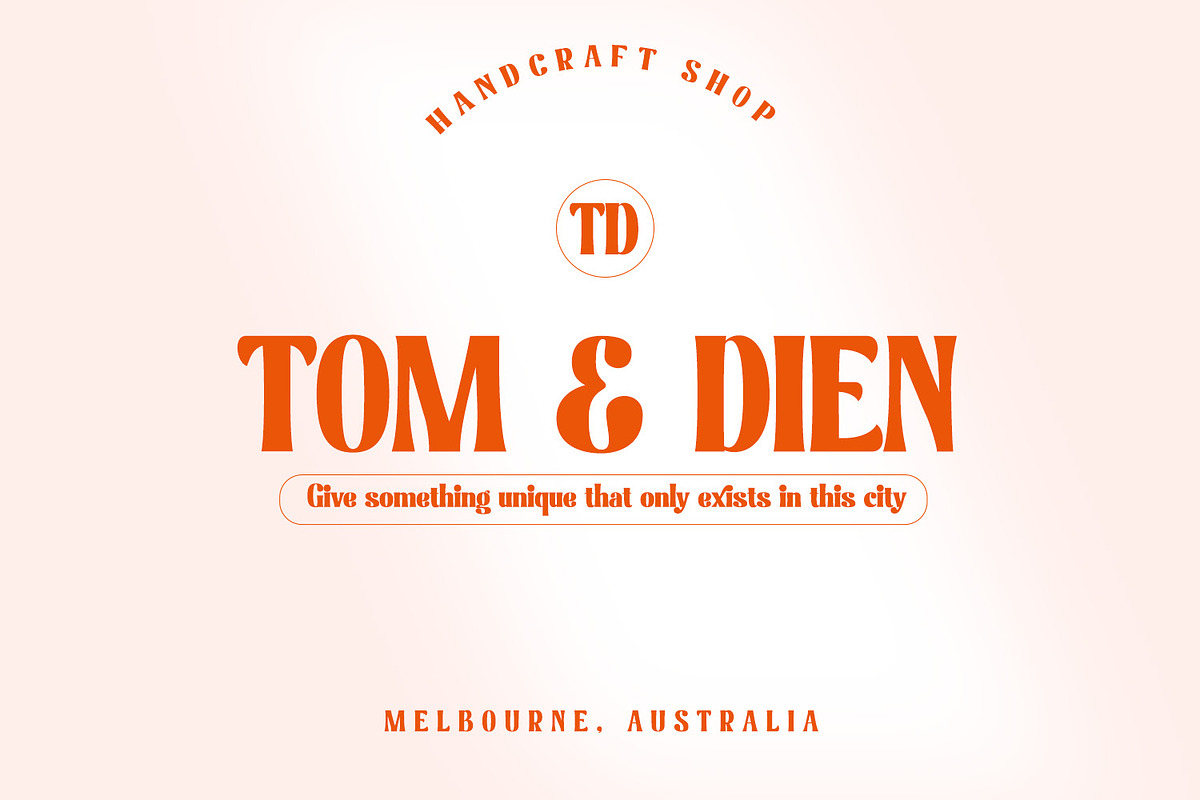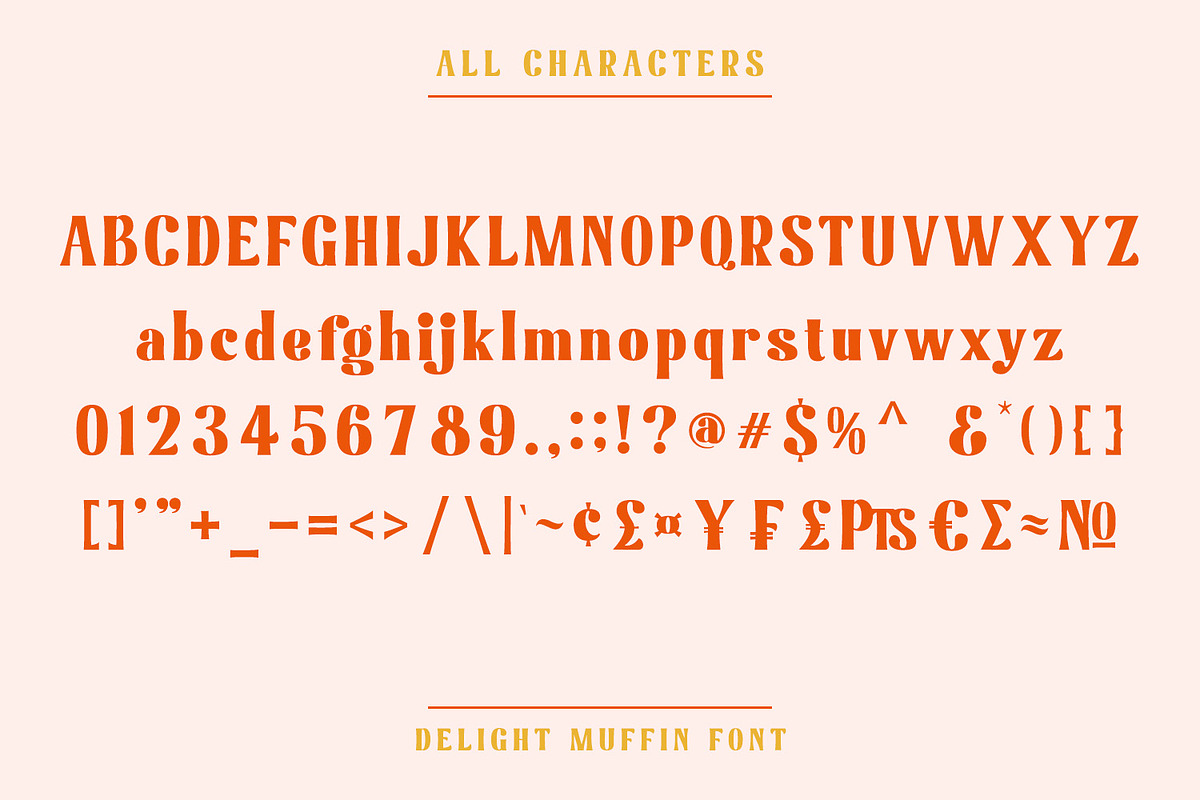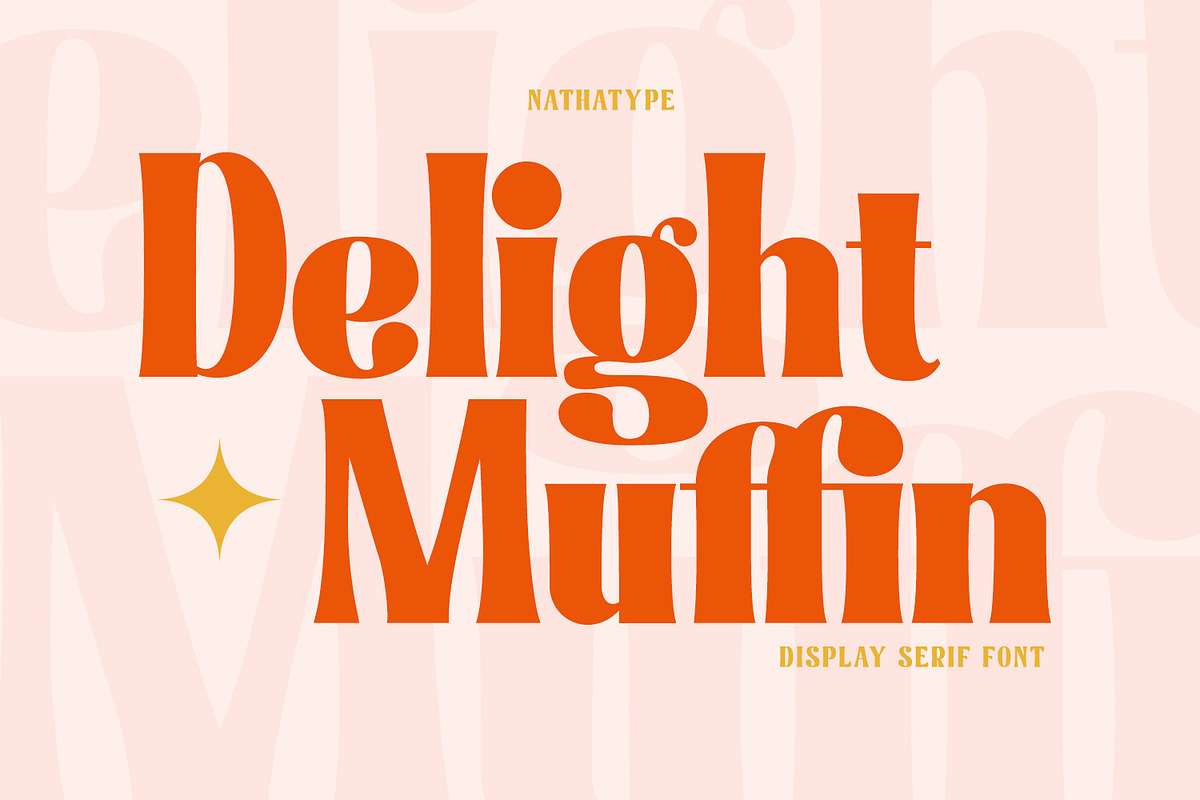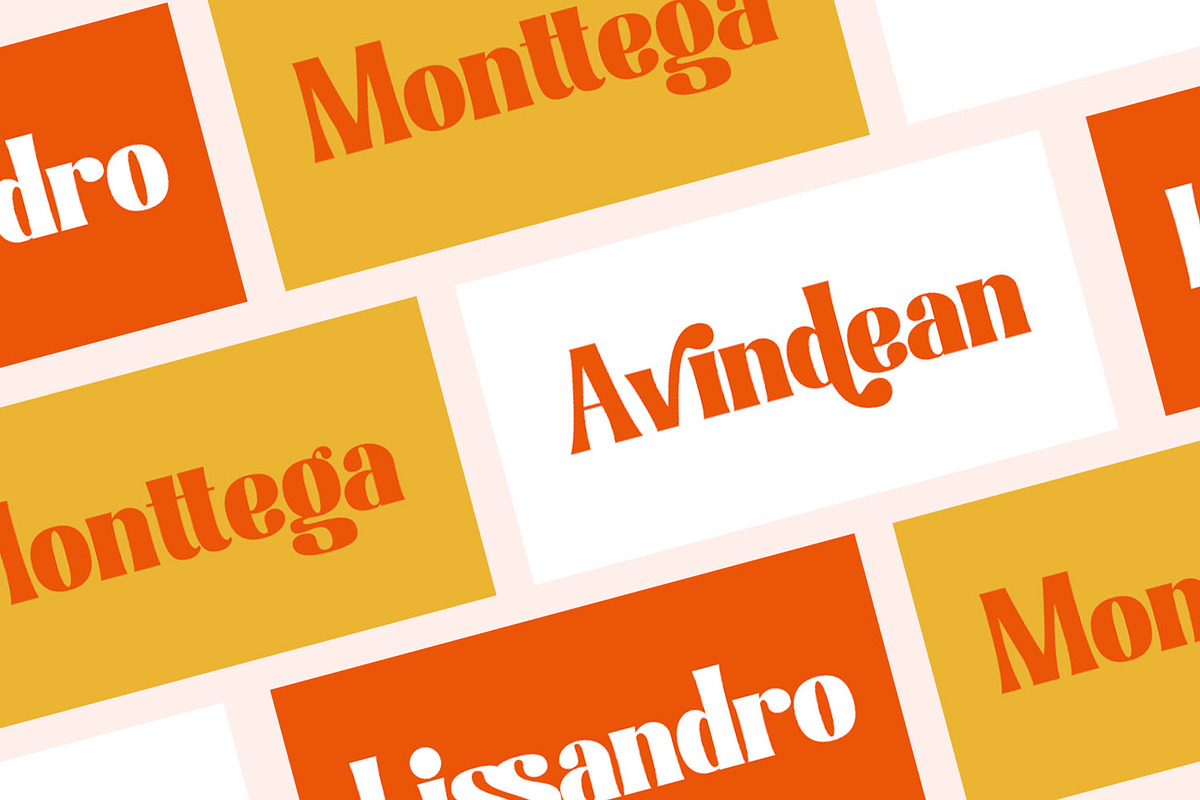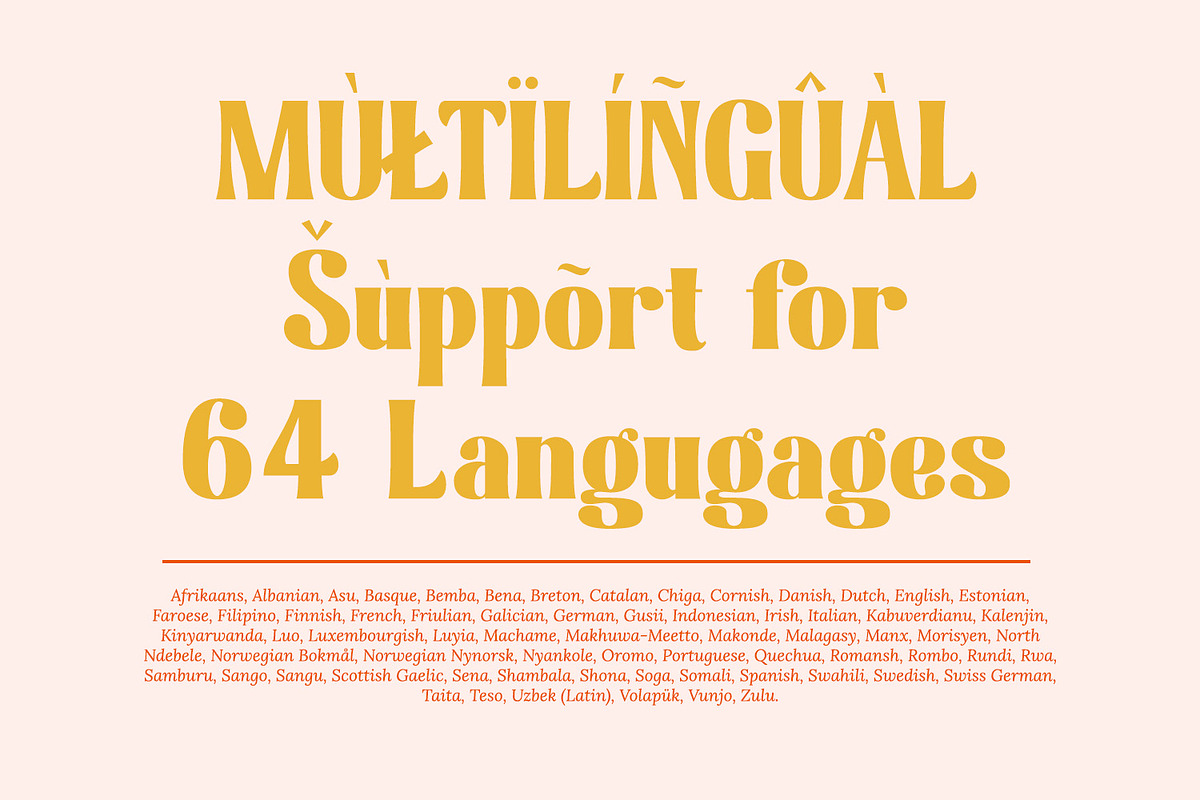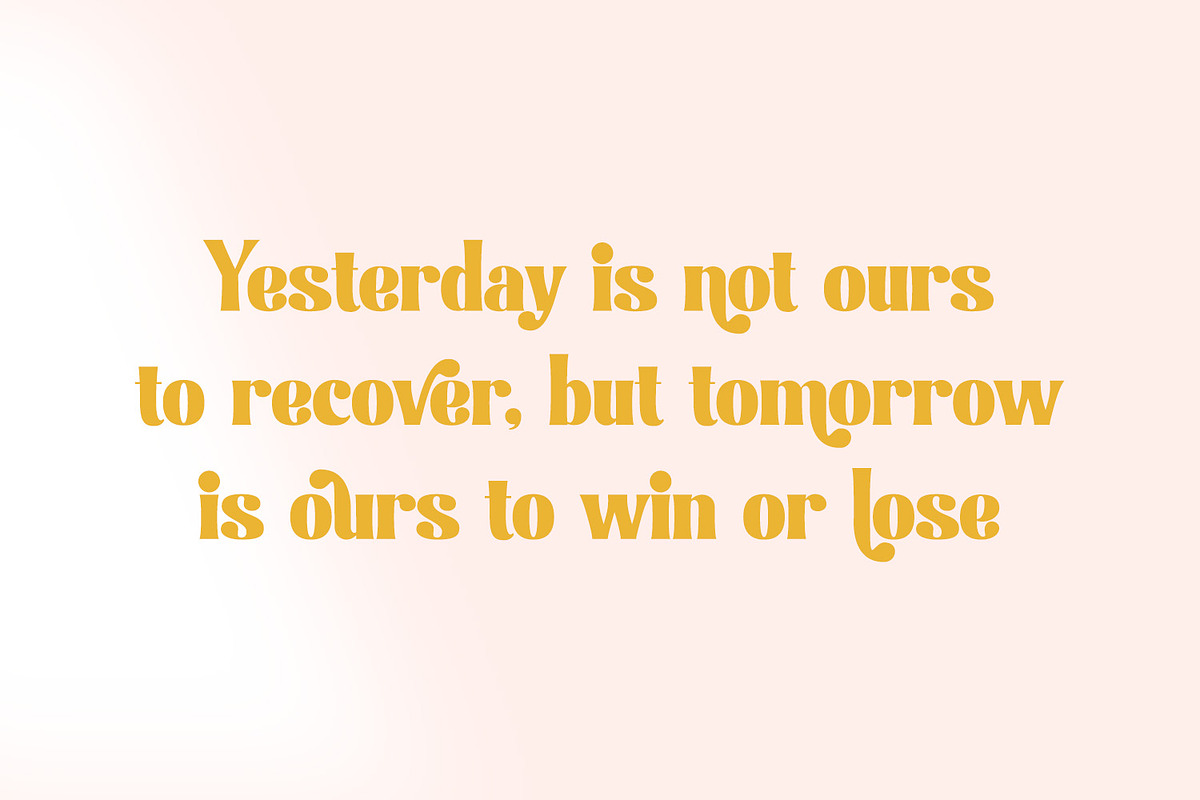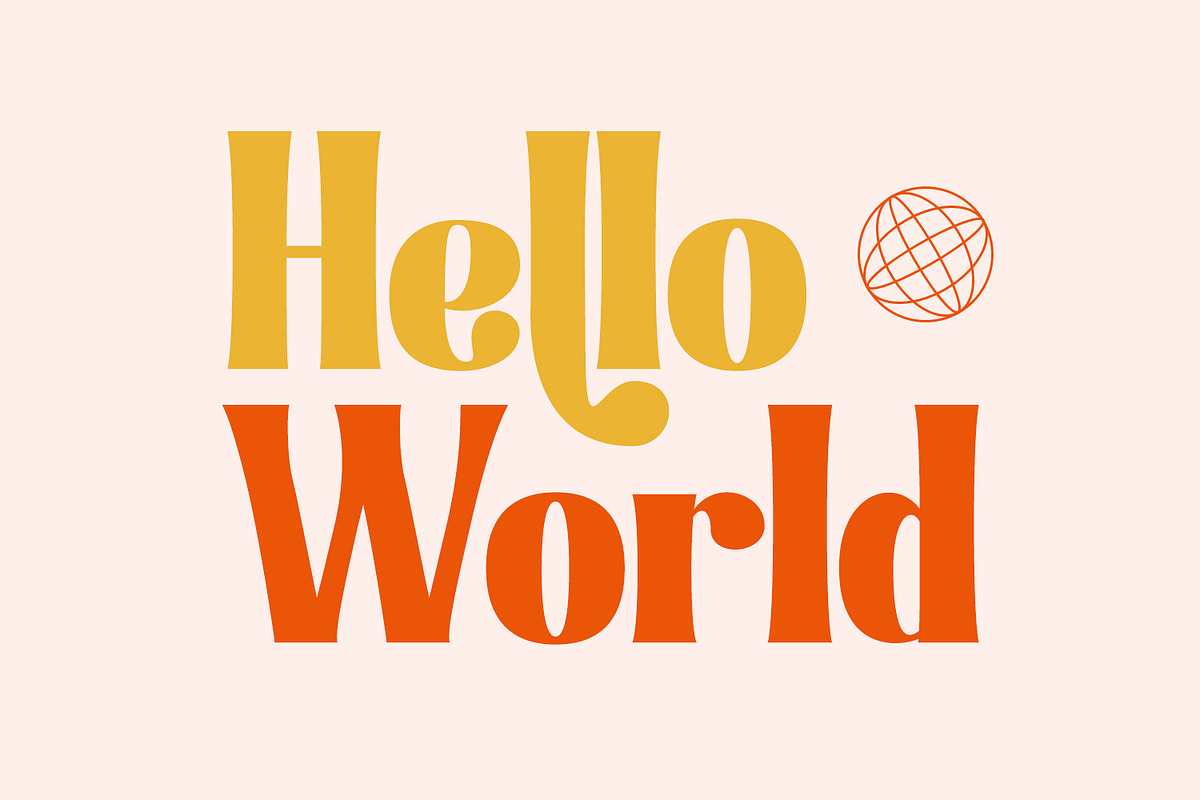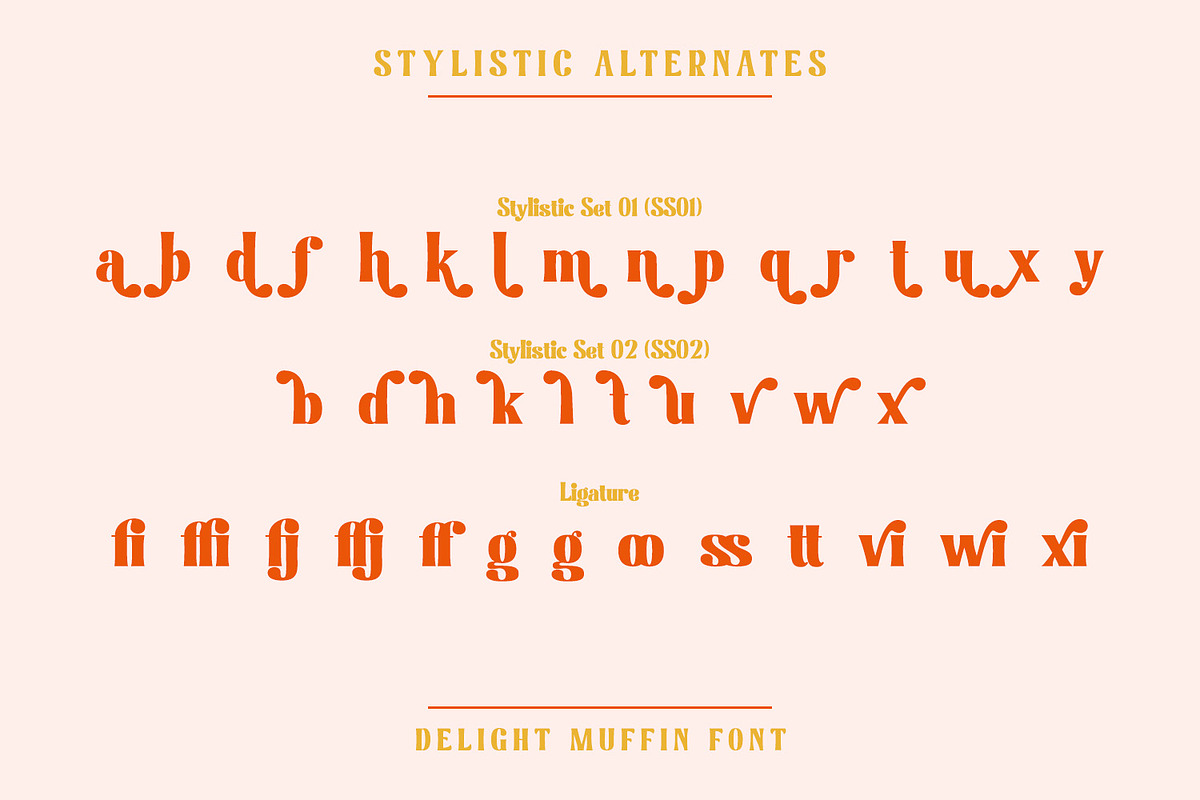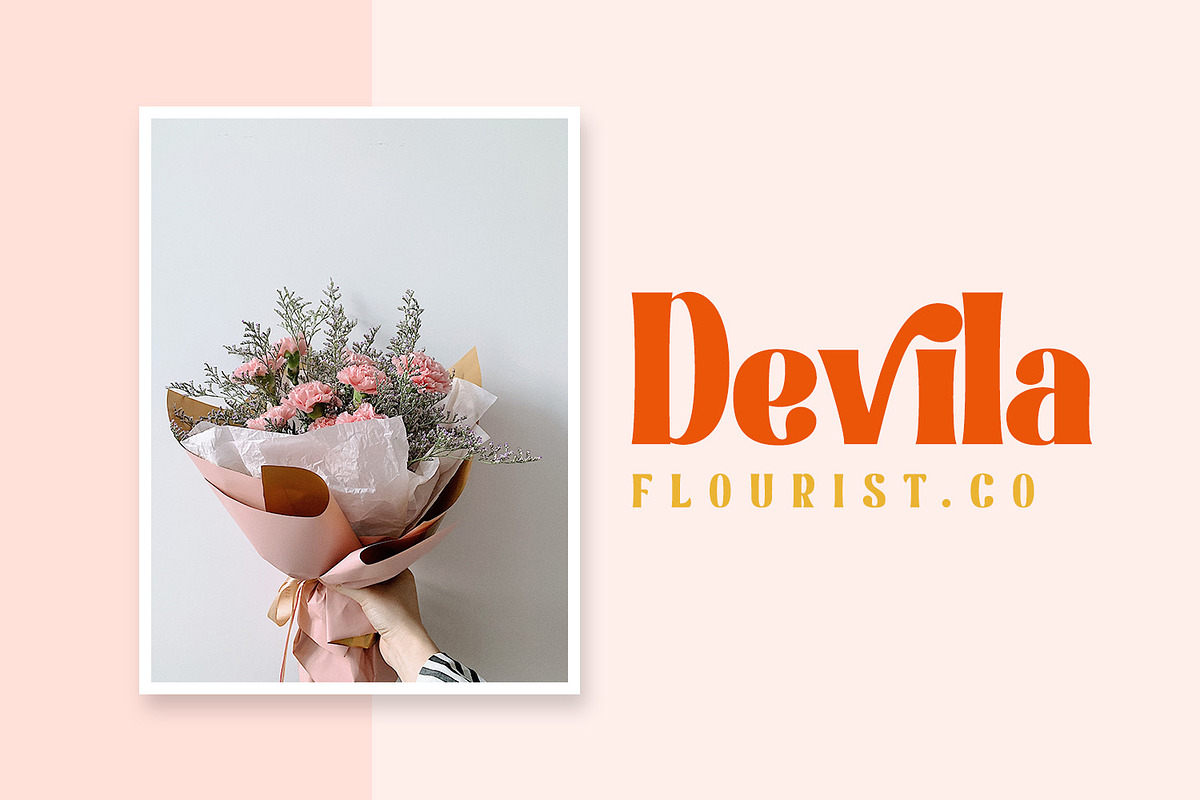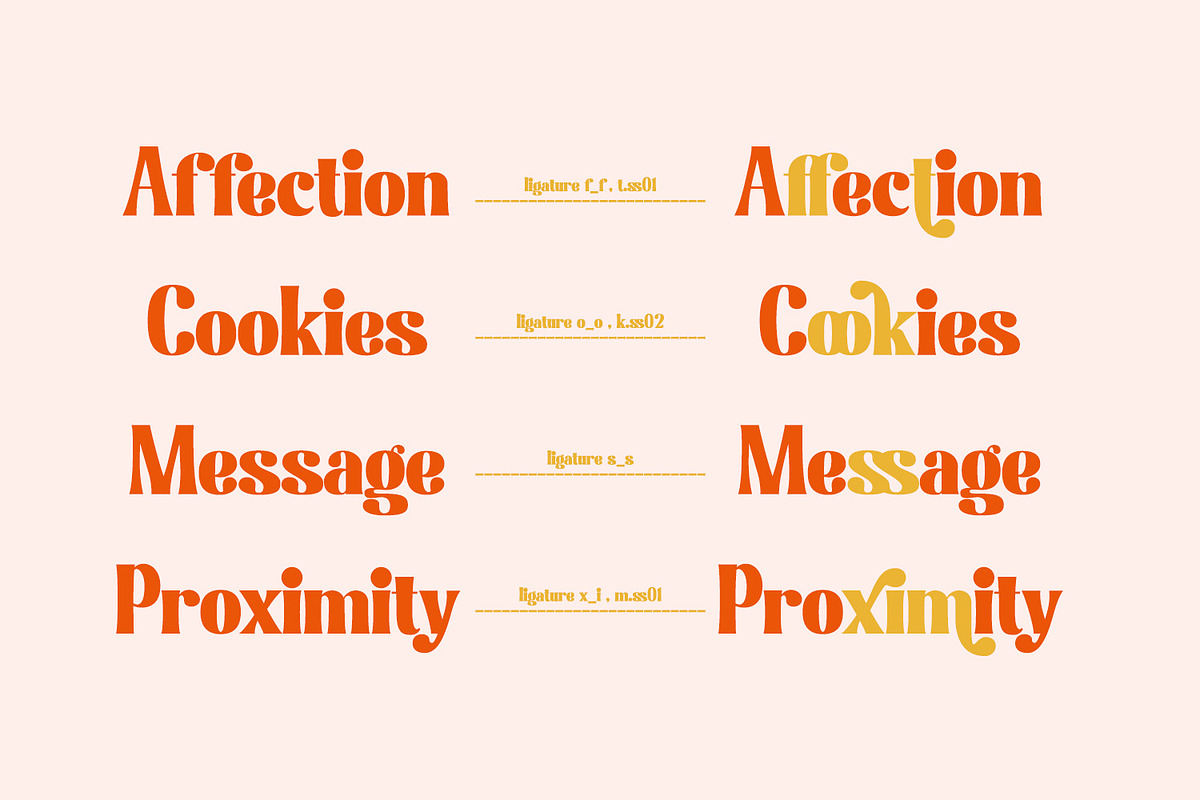
Delight Muffin
Delight Muffin is a display serif font in thickly designed weights for modern, friendly, and stylish design purposes. Generally, every letter of this font is in rounded shapes with a few spaces given. The top and the bottom parts of the letter are the thinnest ones with hardly invisible differences between the thick and the thin lines, which contrast the low lines. With Delight Muffin’s legibility, it is possible to use the font in various text sizes.
- Stylistic Sets
Delight Muffin fits for various design projects, such as posters, banners, logos, magazine covers, quotes, headings, printed products, invitations, name cards, merchandise, social media, etc. Find out more ways to use this font by taking a look at the font preview.